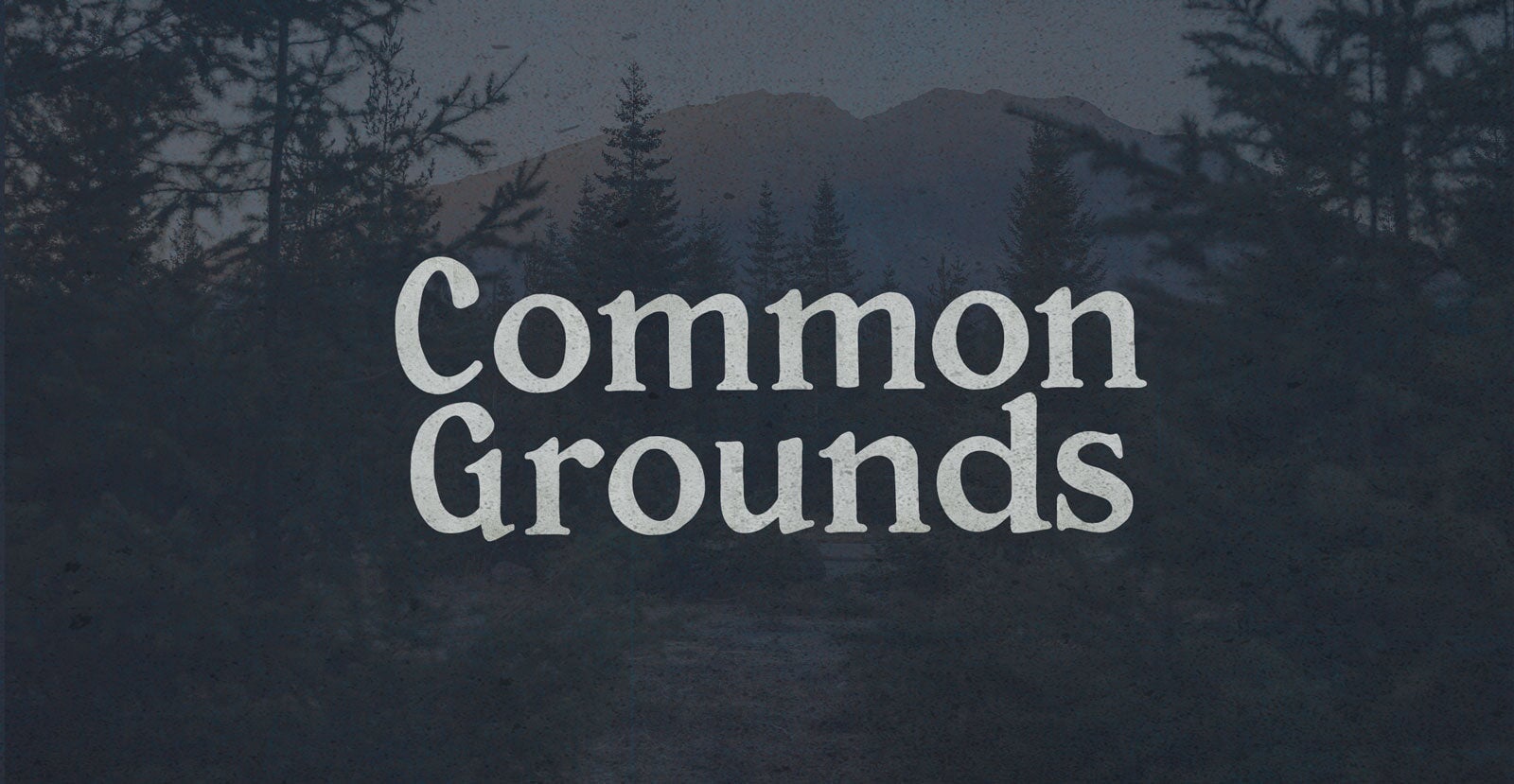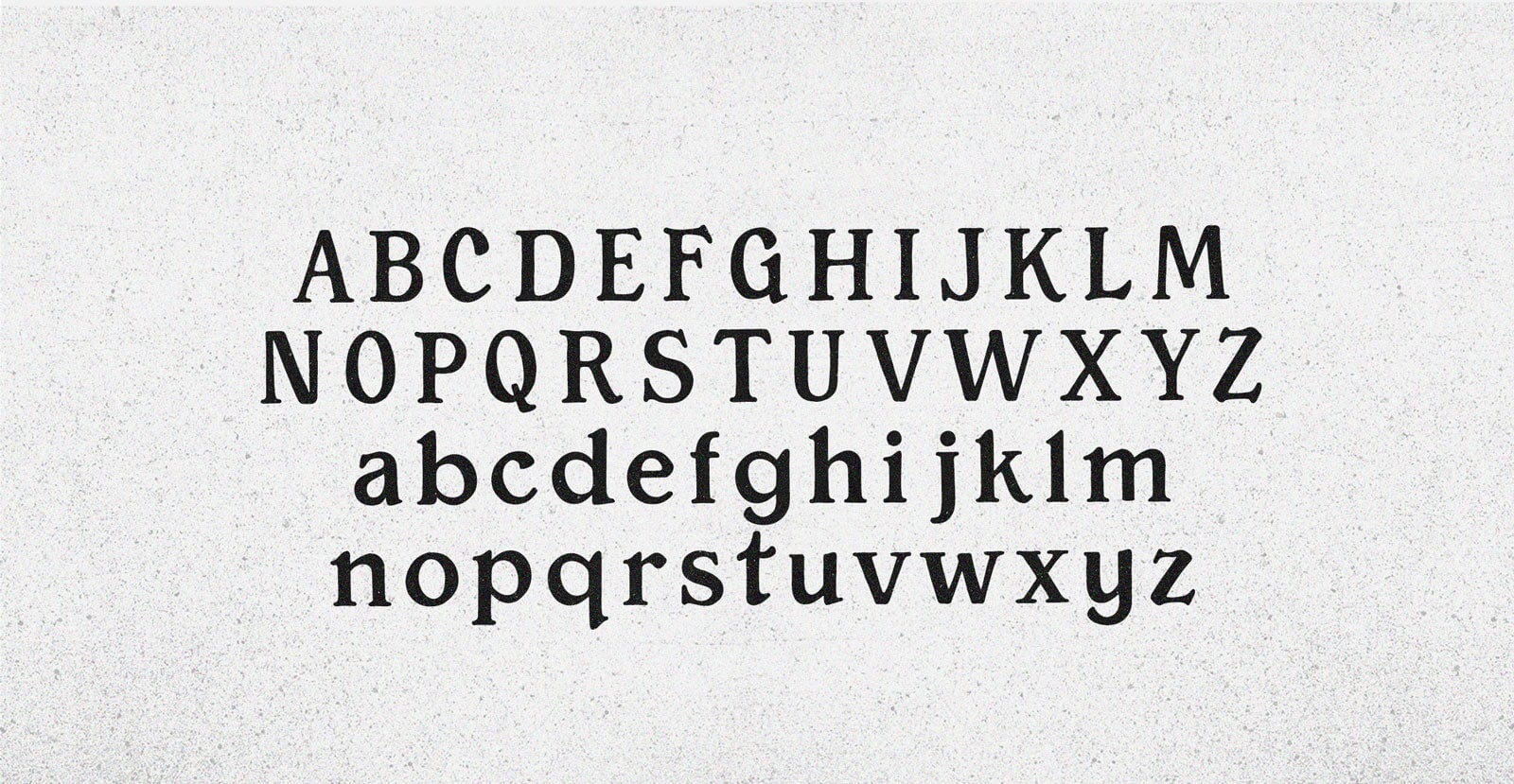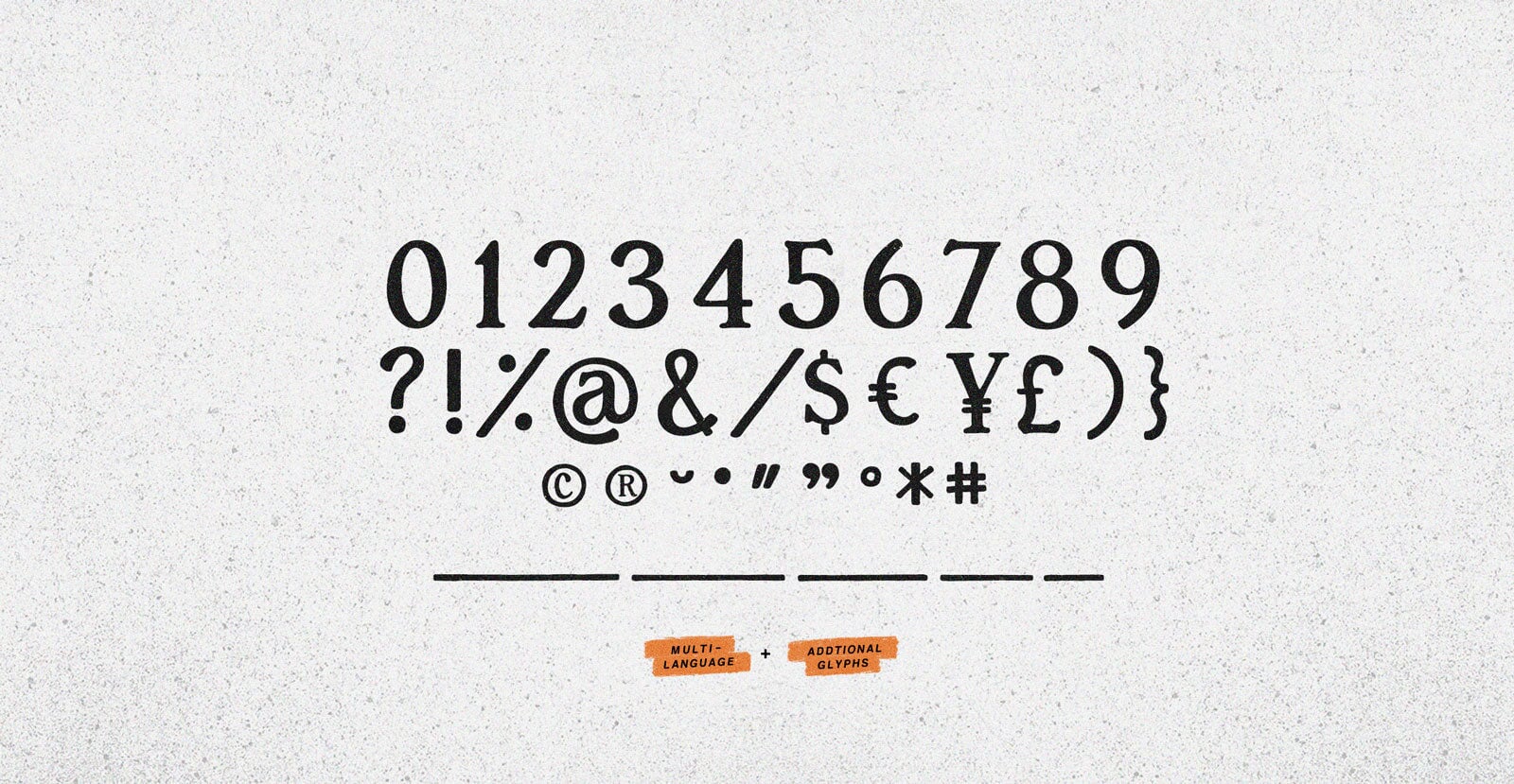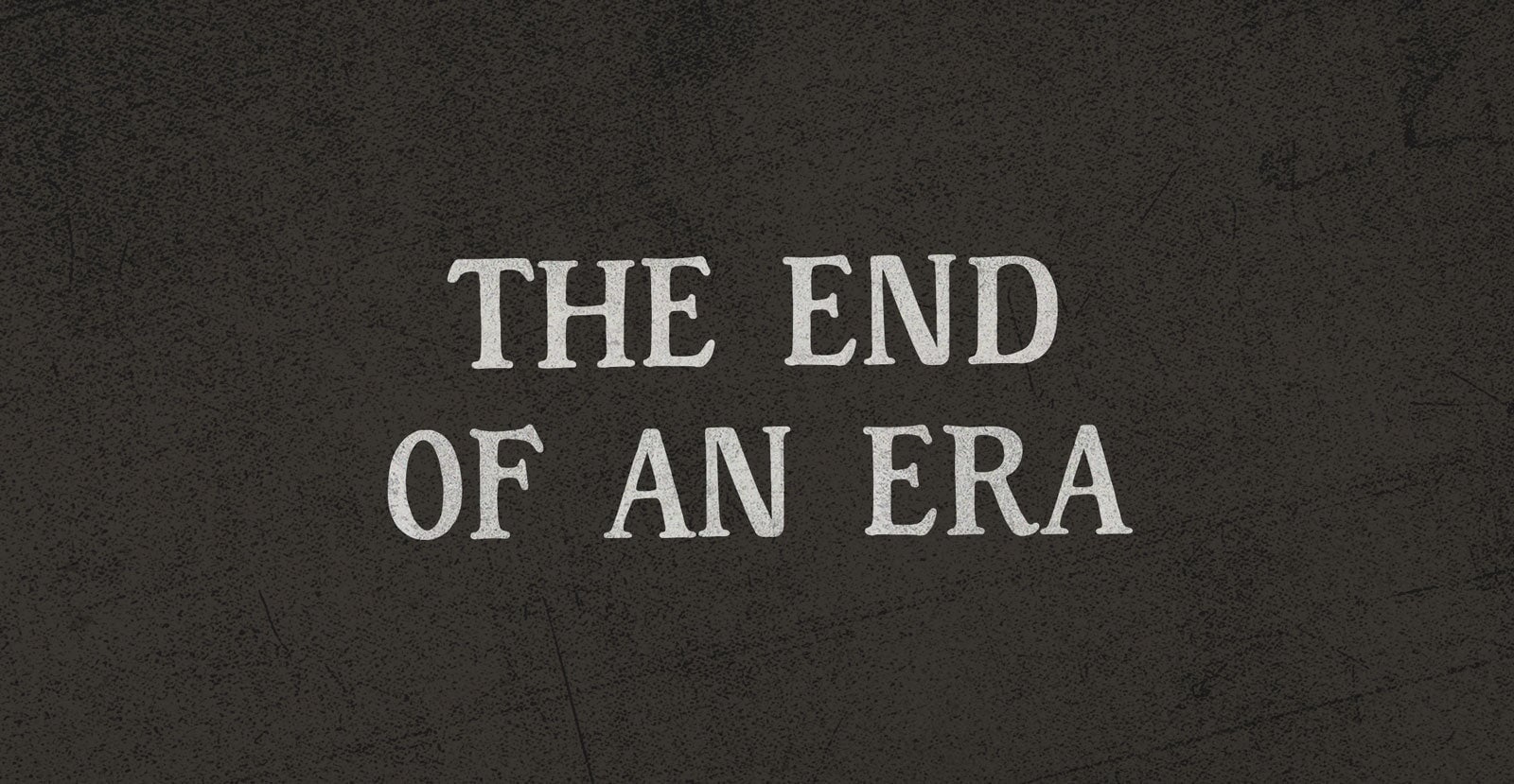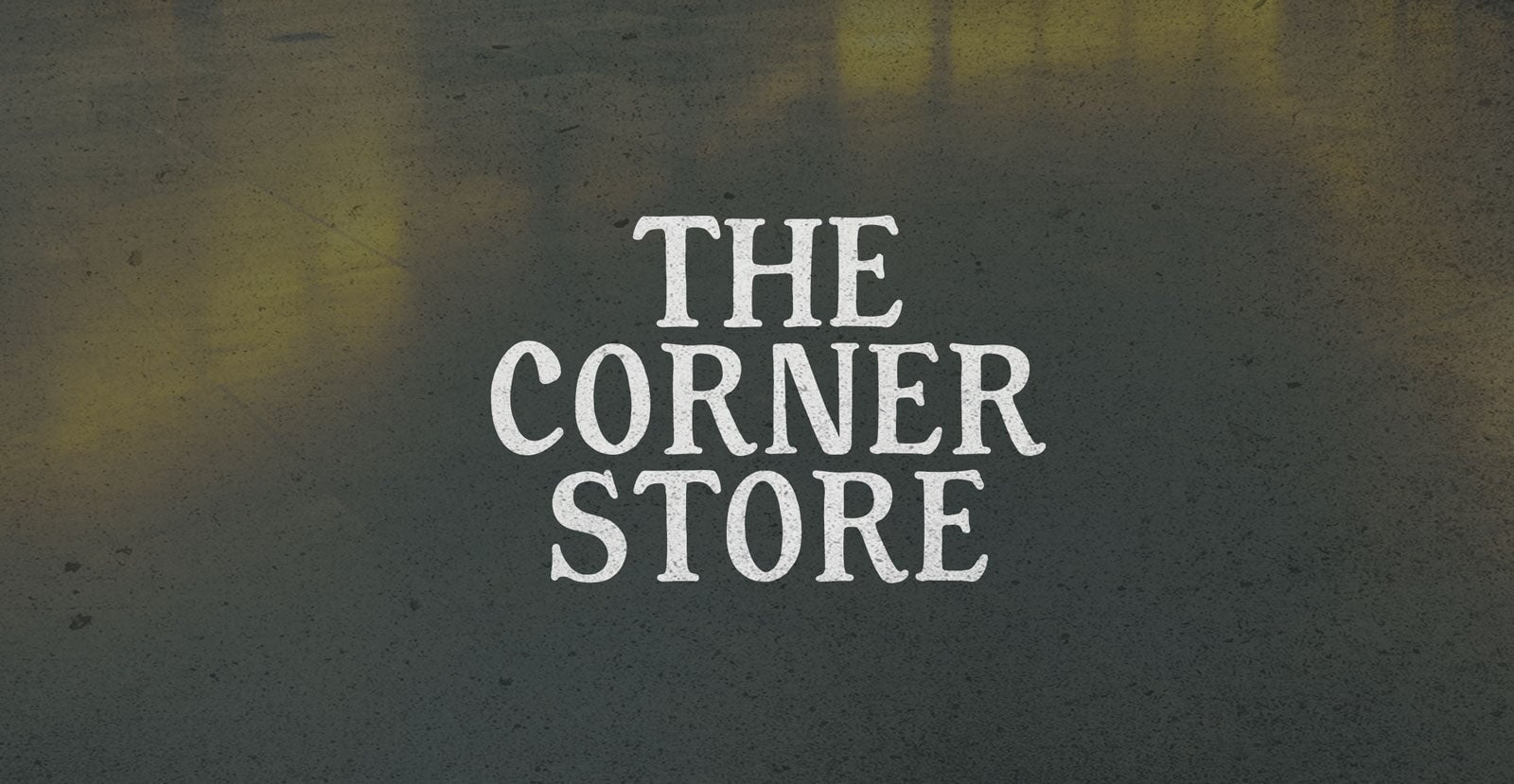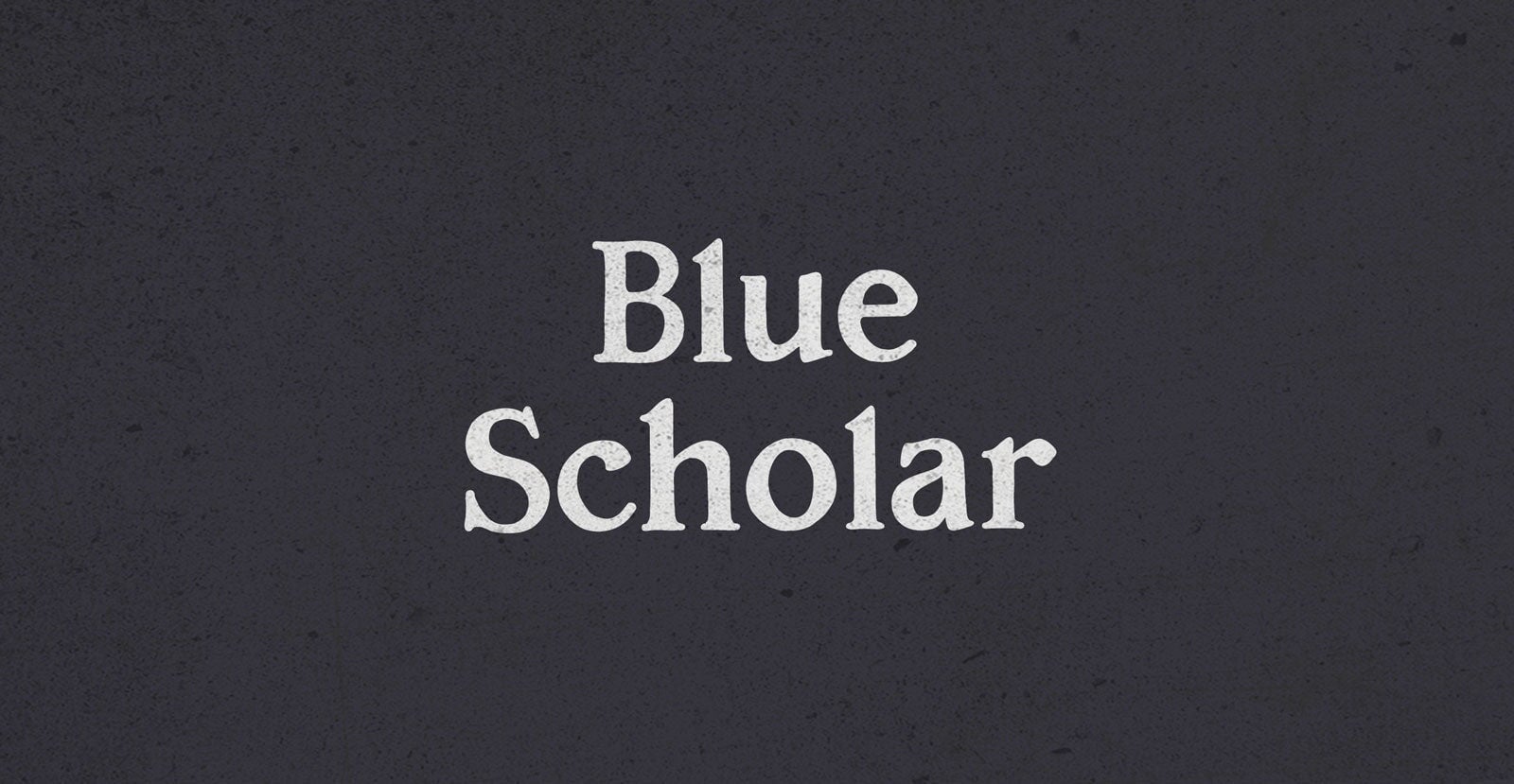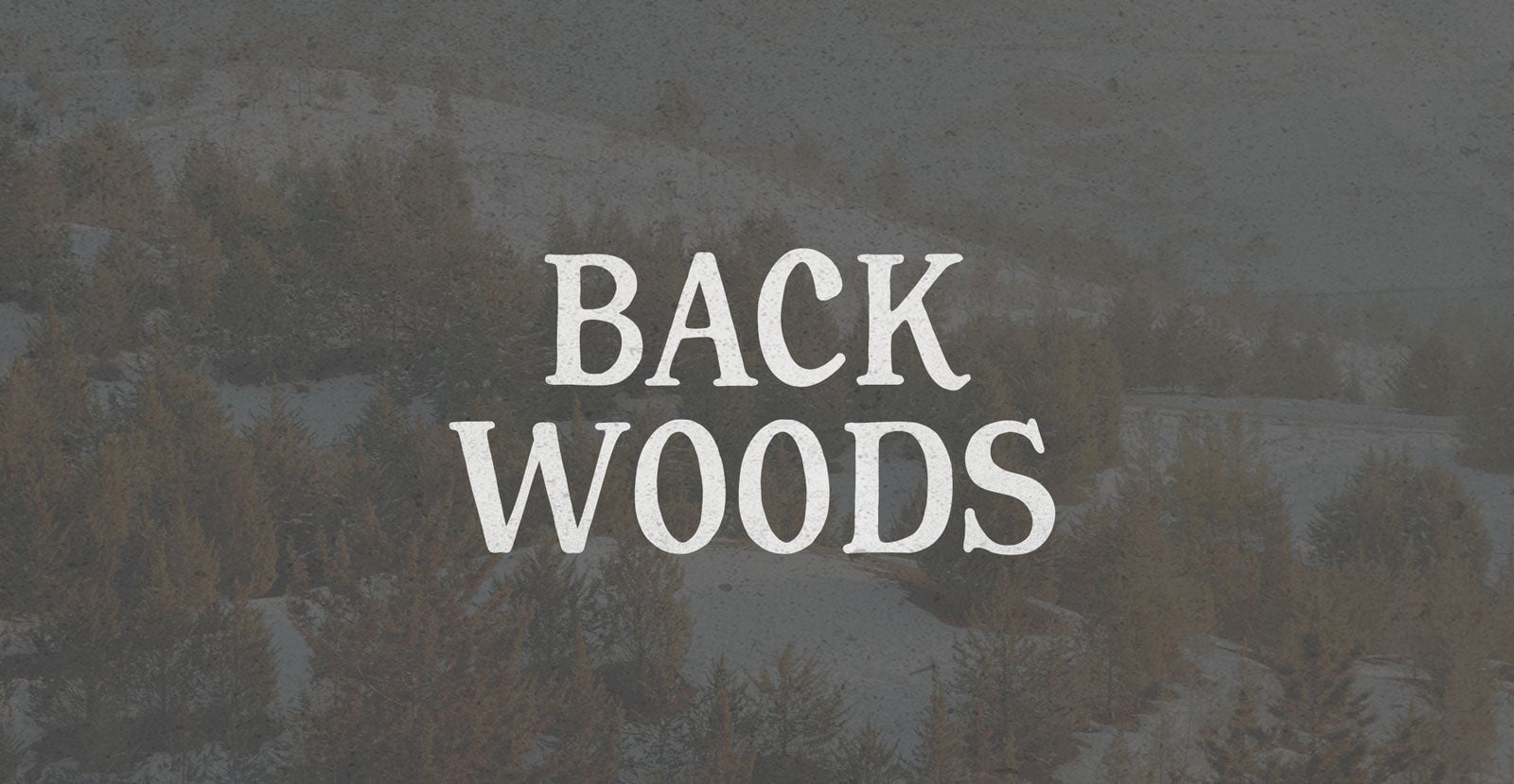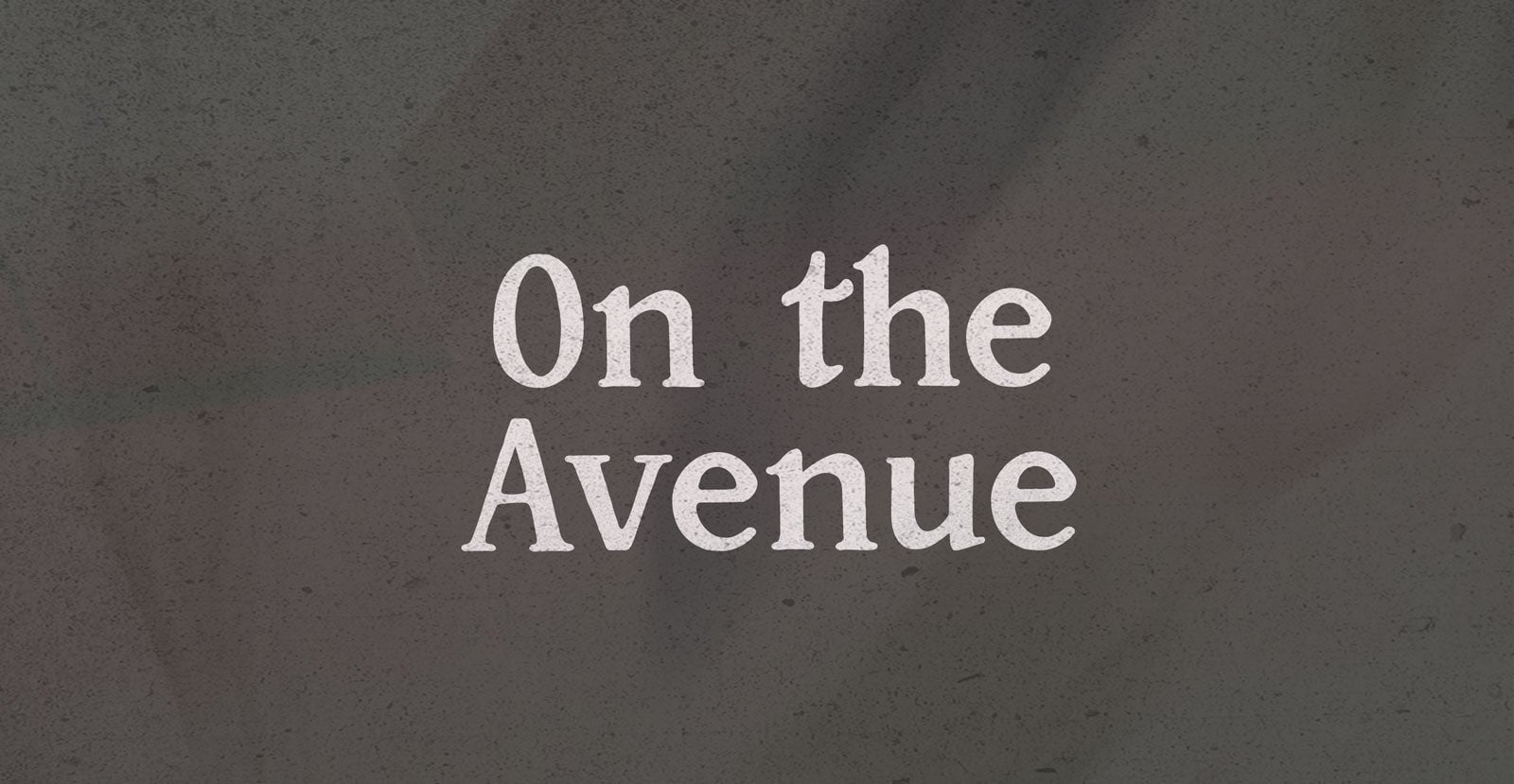
Common Grounds
Handwritten Serif Font
We want to feast in clover—hang the Geist from the Zeit ‘til the timelines collapse. That’s a heaving bulk of ectoplasmic mass—a tragi-comedy of the Common Grounds ground down but still common, still ground. And we can’t take it if we can’t take it over.